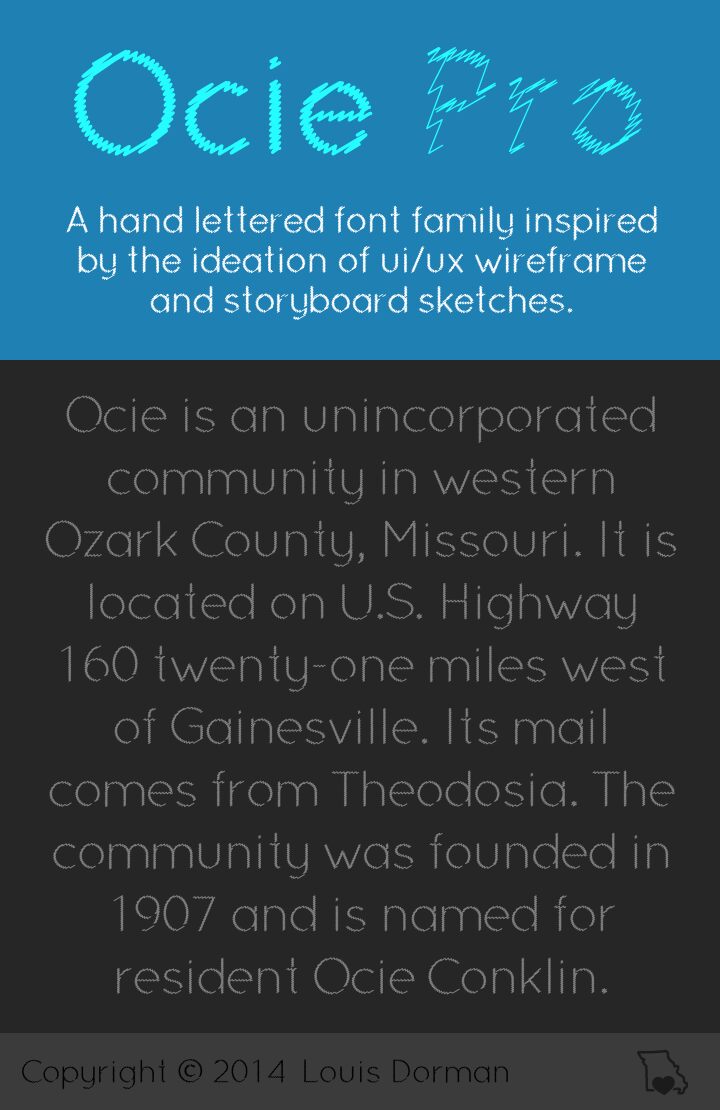
Ocie Storm is a captivating display font that beckons the eye with its distorted, hand-lettered charm. Inspired by the dynamic energy of UI/UX wireframes and storyboard sketches, this font family exudes a bold, unconventional aesthetic.
The irregular, jagged strokes create a striking, almost raw visual impression, lending an edgy, experimental feel to designs. Ocie Storm's unique character makes it a versatile choice for a range of creative applications, from eye-catching headlines and logo treatments to expressive packaging and editorial layouts.
Its distinctive style effortlessly conveys a sense of spontaneity and innovative thinking, making it an ideal complement for modern, forward-looking design projects.
Ocie Storm